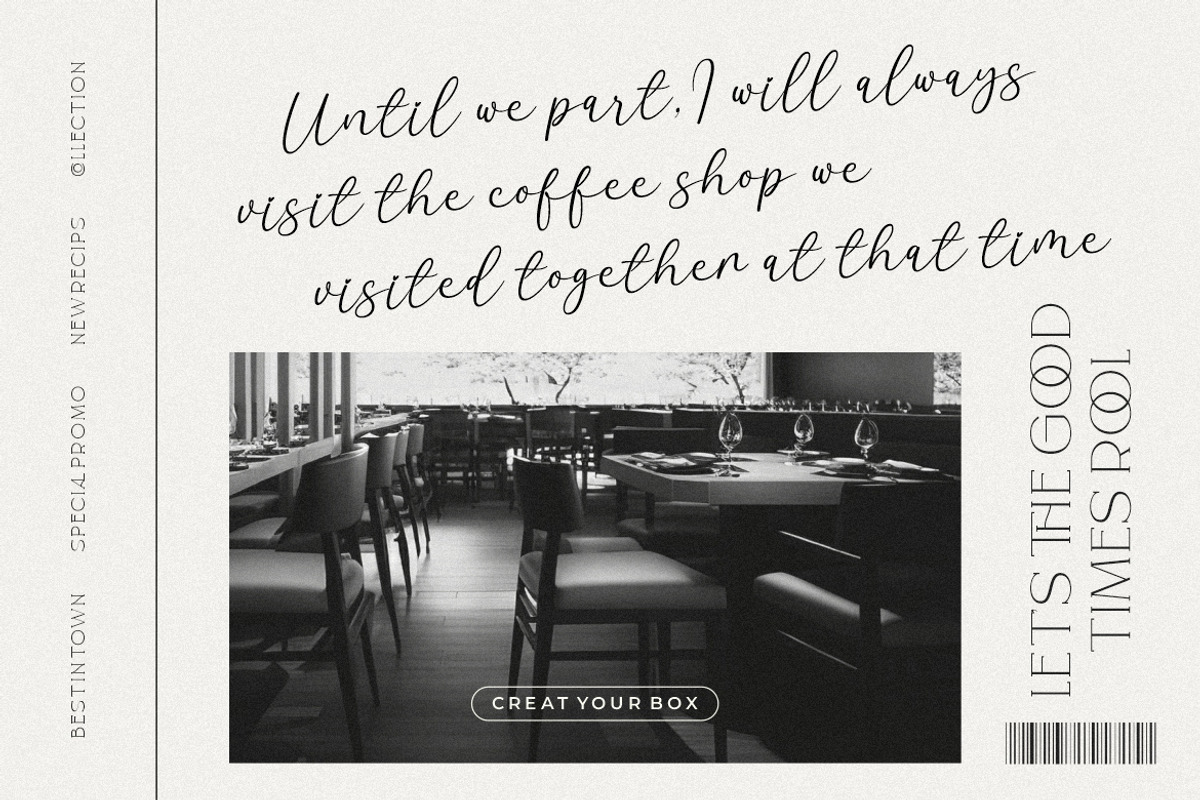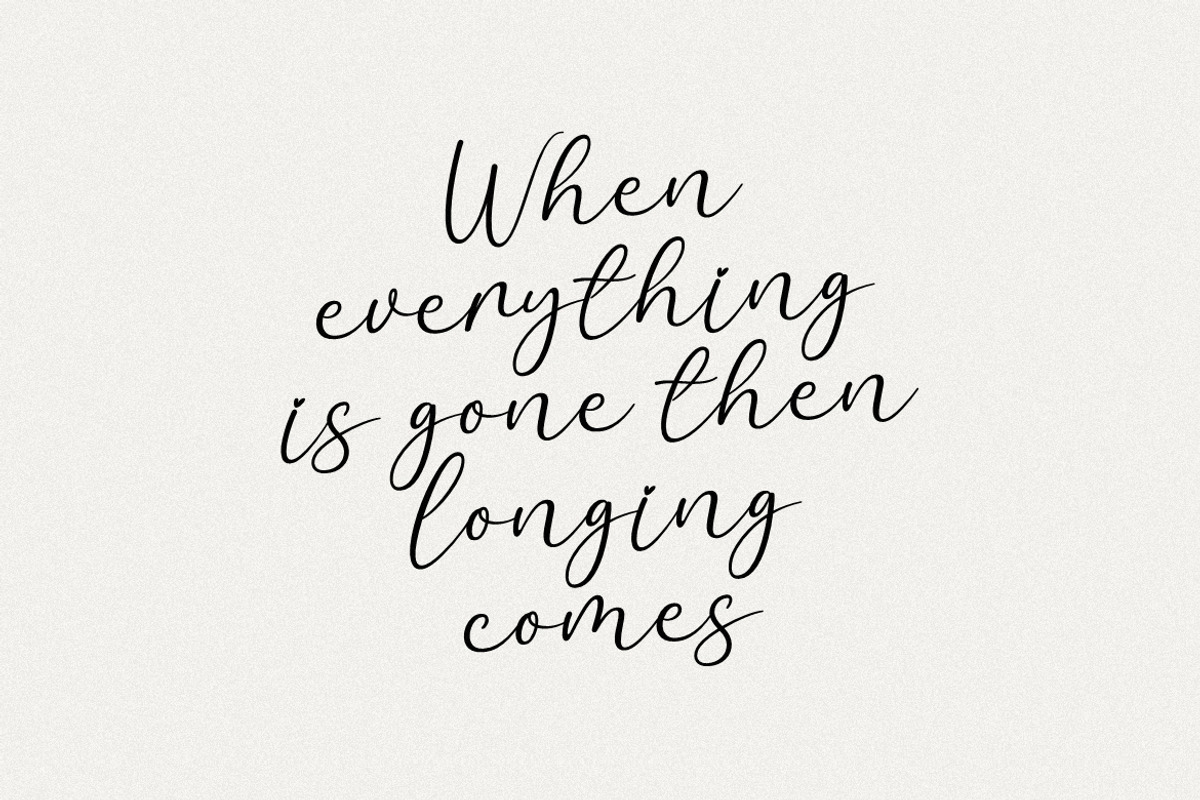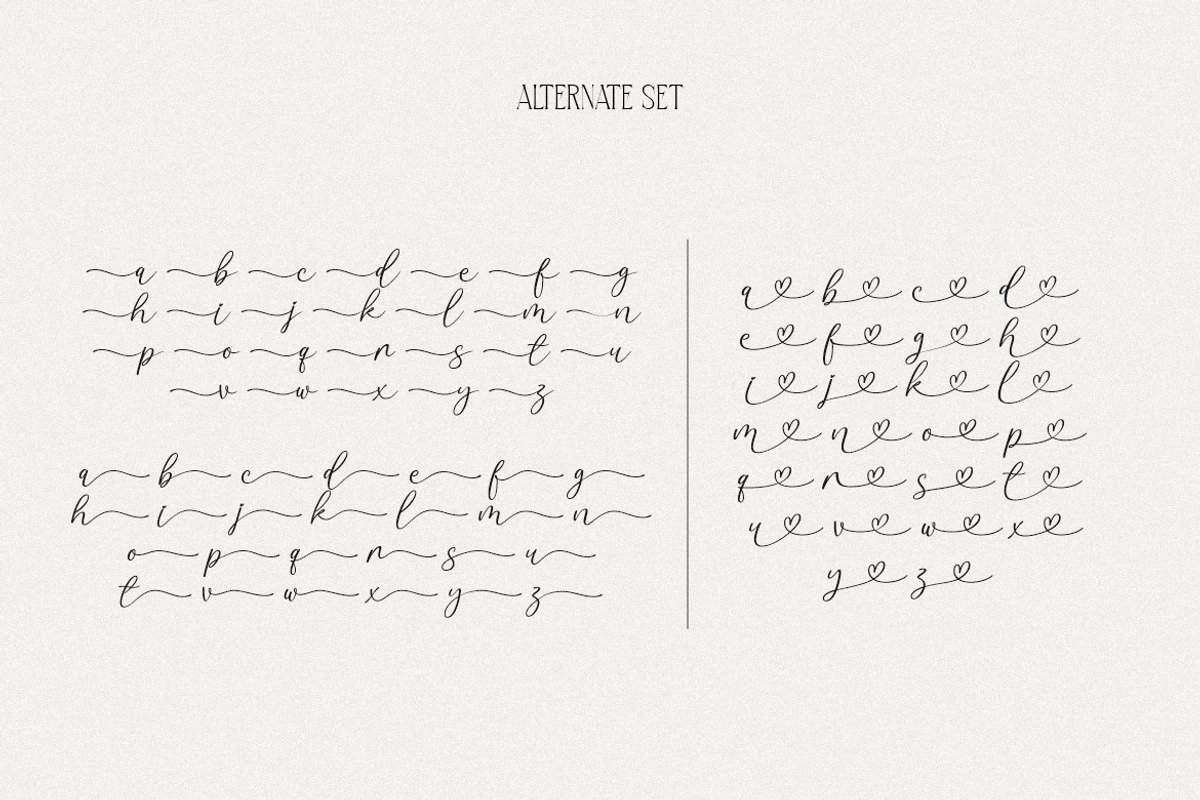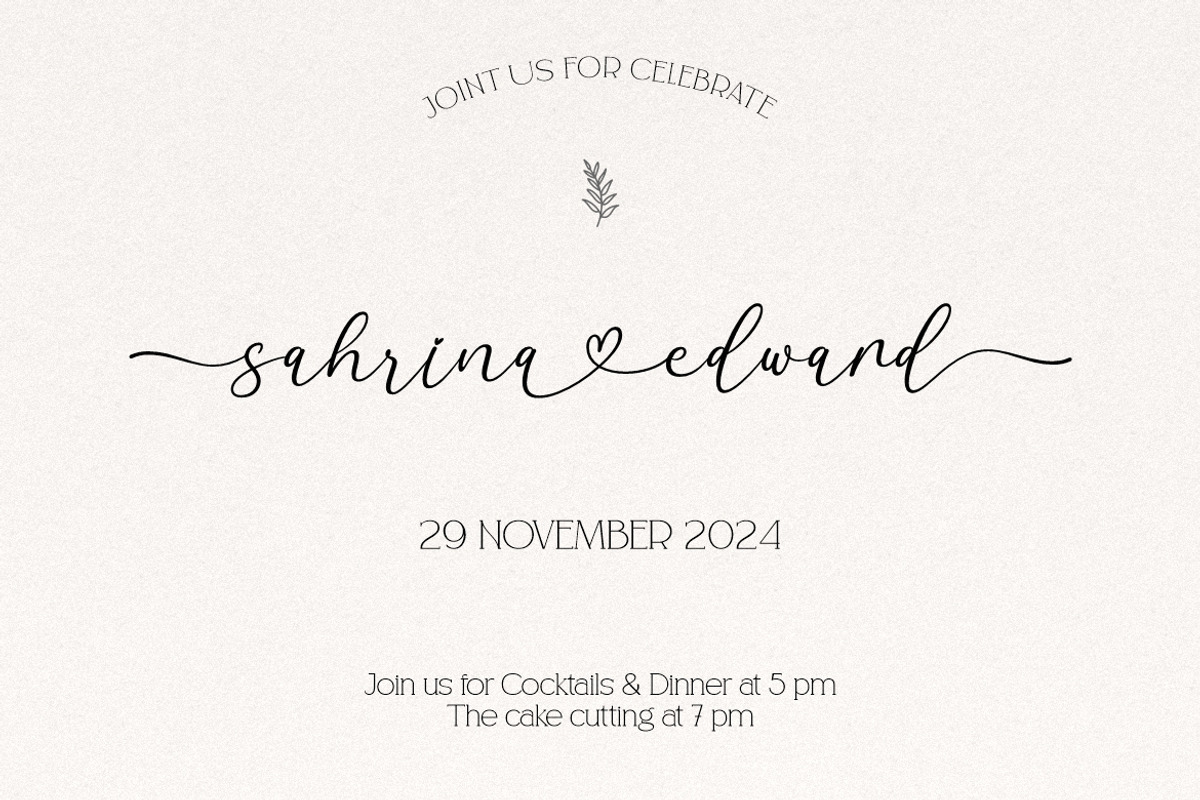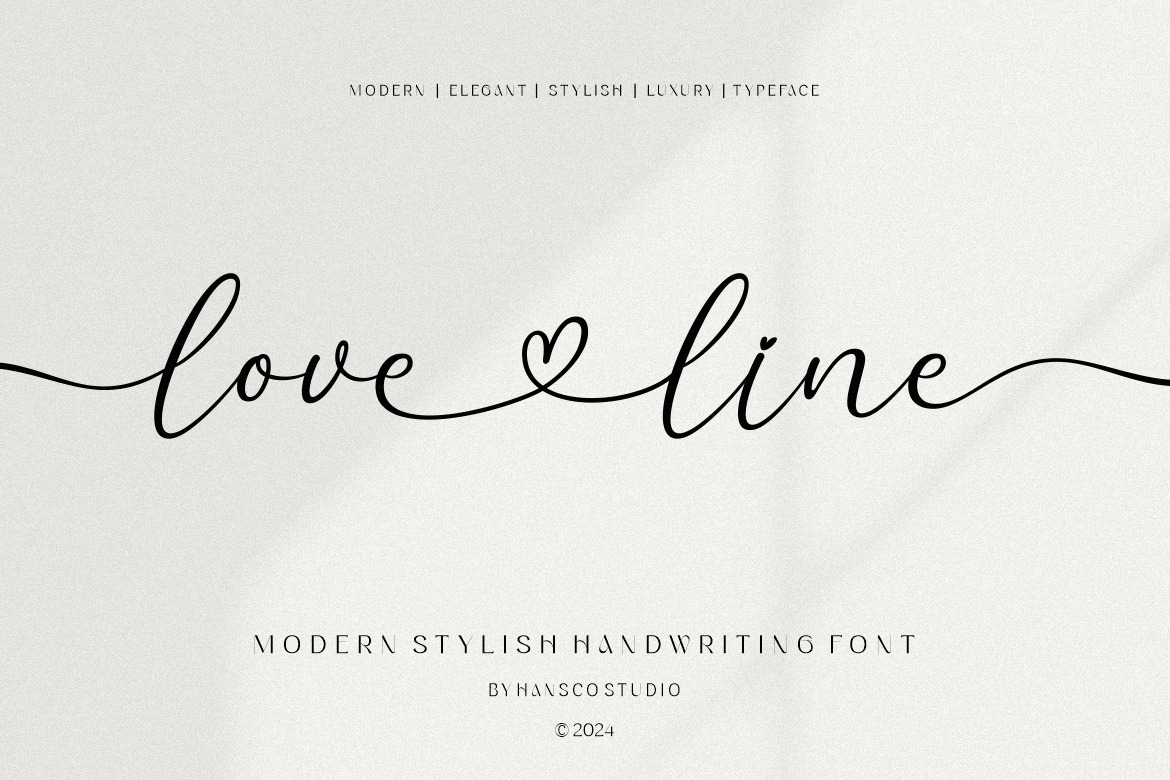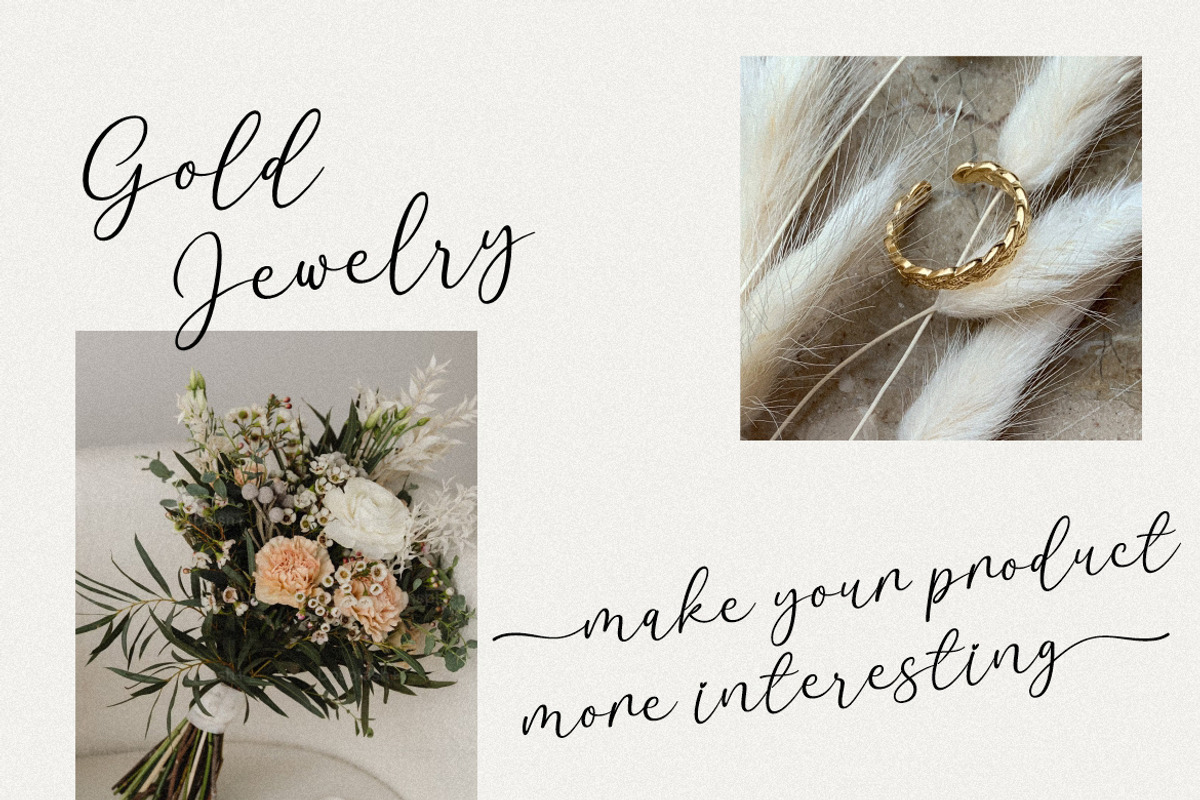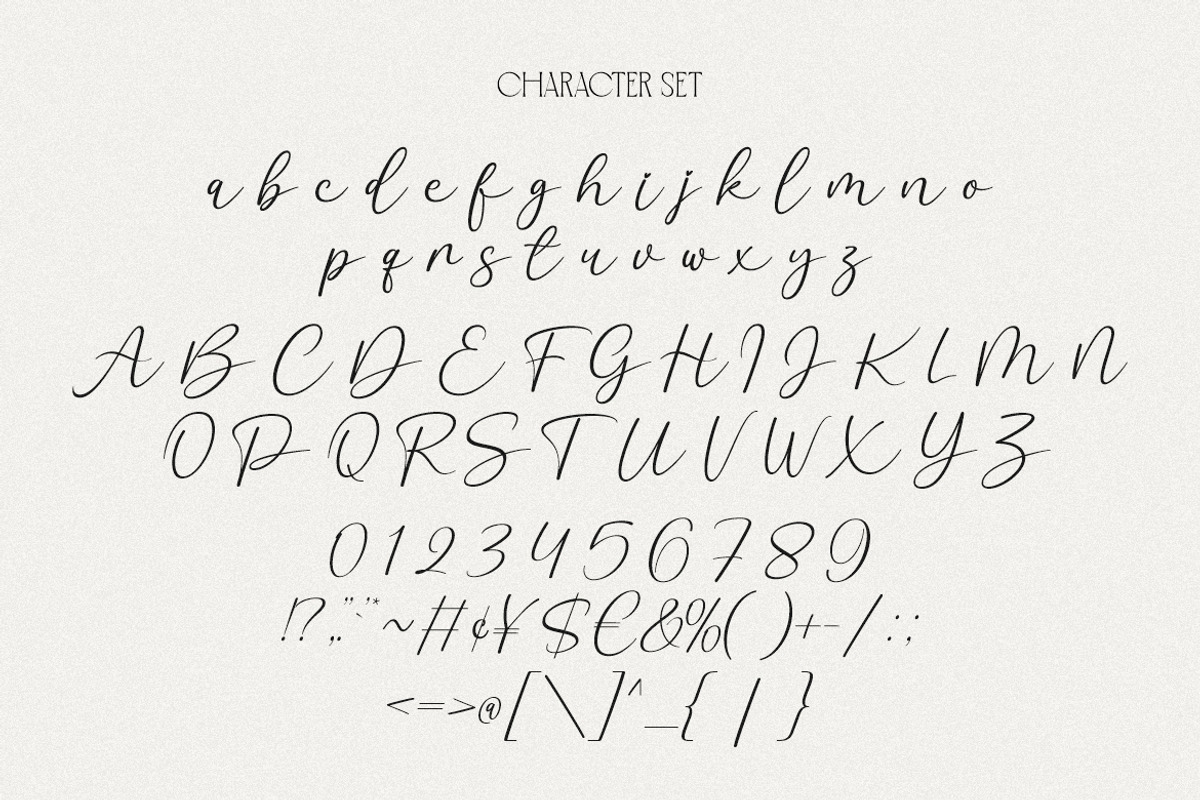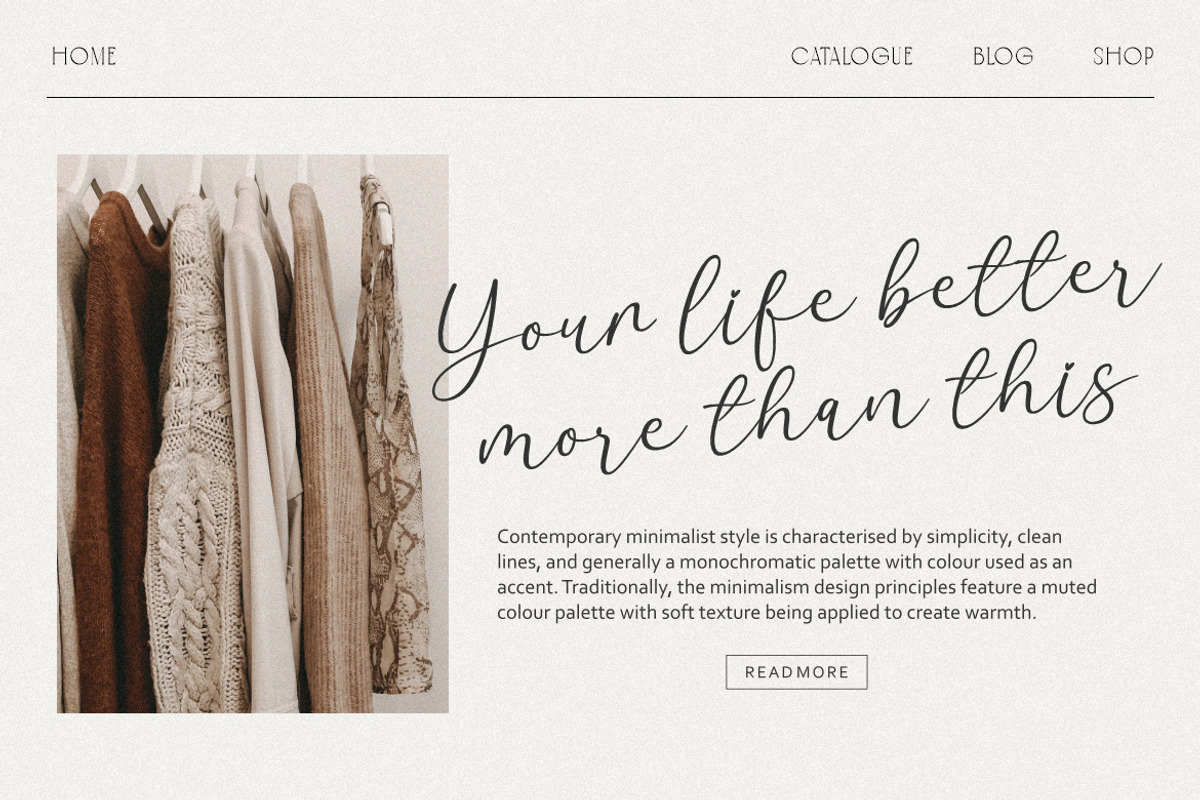
Love Line Handwriting Font
Love Line font is a modern, casually and feminine handwritten script. Some projects that are suitable for this font include quotes, menus, taglines, flyers, posters, invitations, greeting cards, posters, business cards, clothing, letters, stationery and many others. Comes with a full uppercase, lowercase, numbers, punctuation, alternate character and with extensive language support, it's going to be a very usable addition to your project.
Number
Multilingual Supports
Swashes